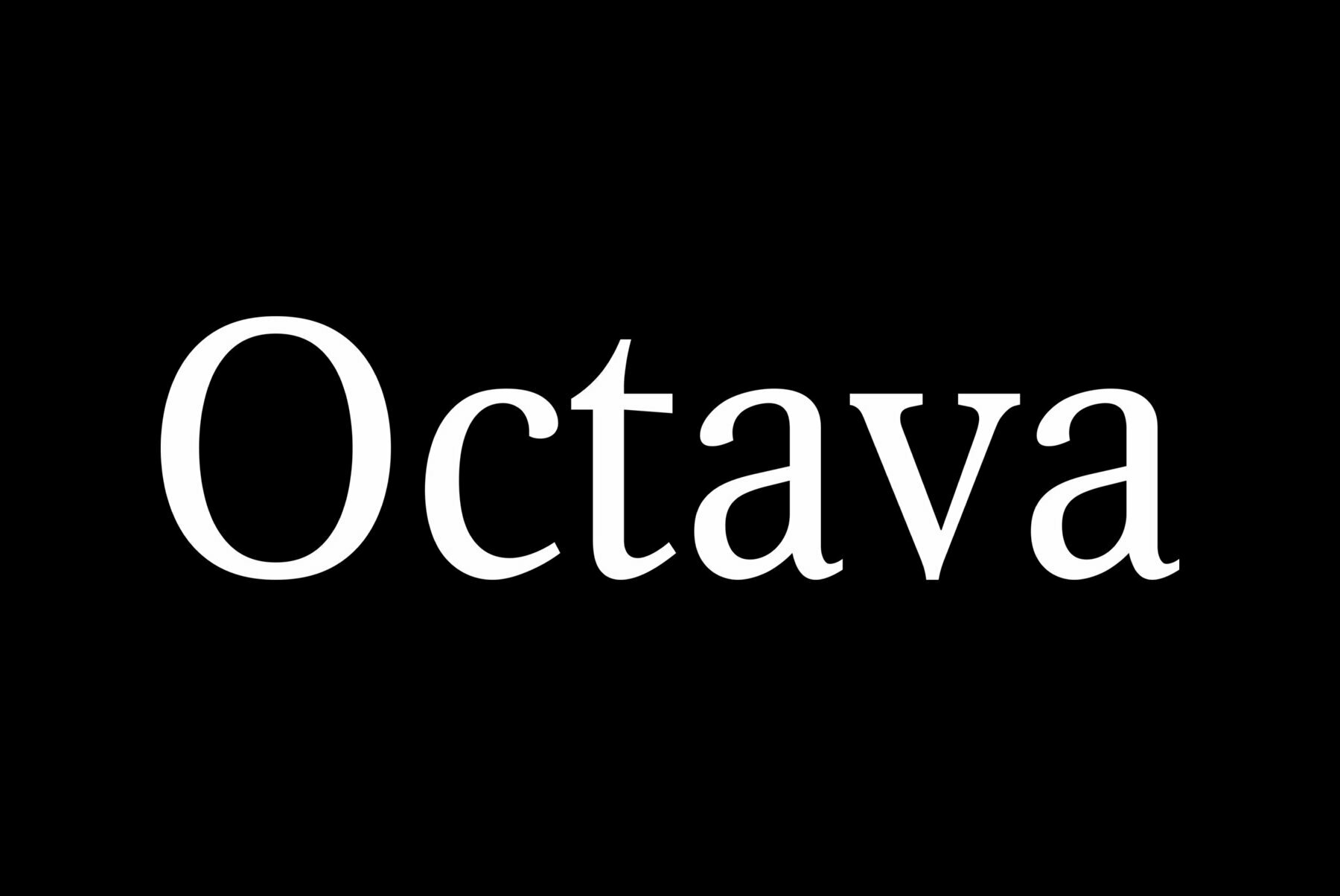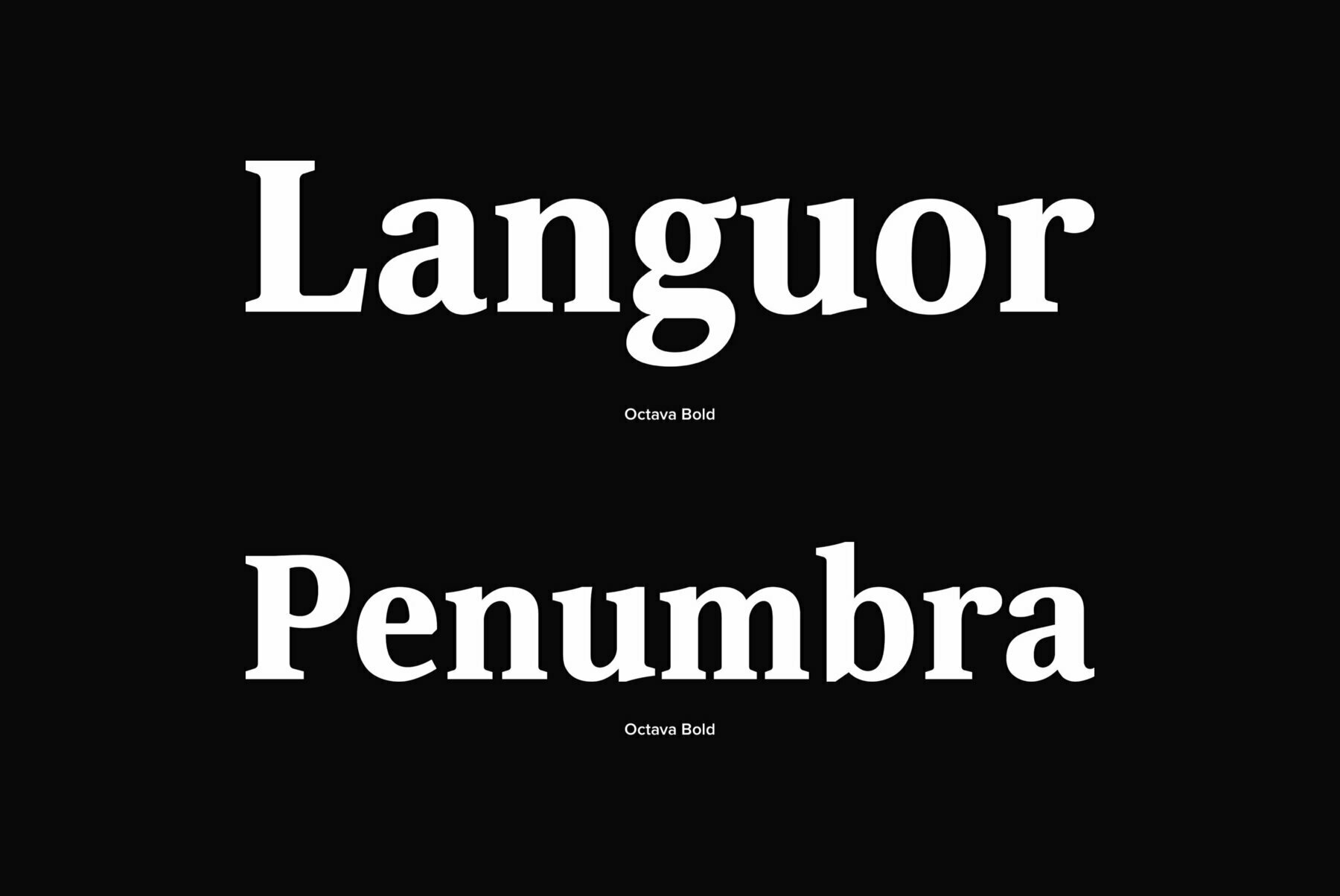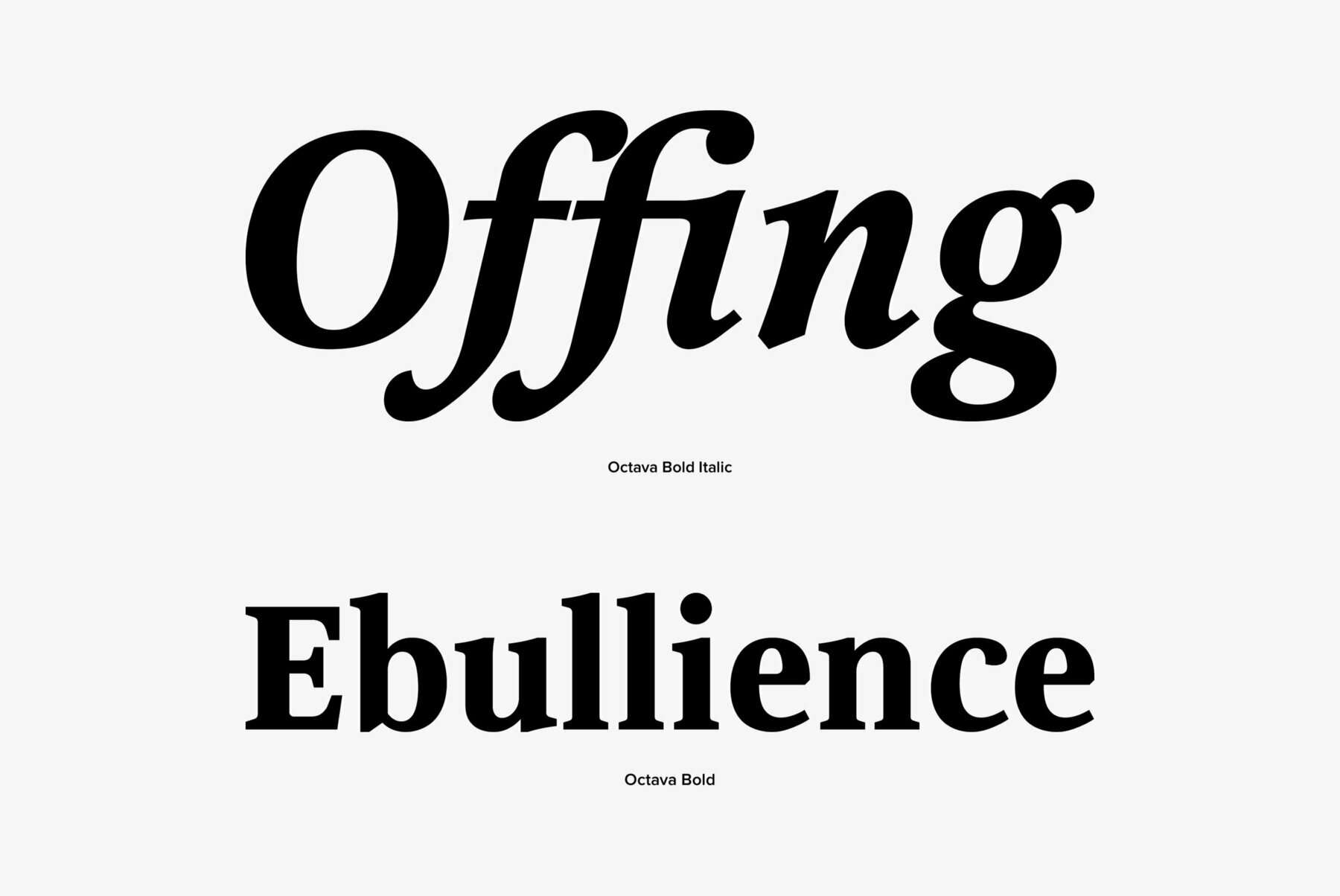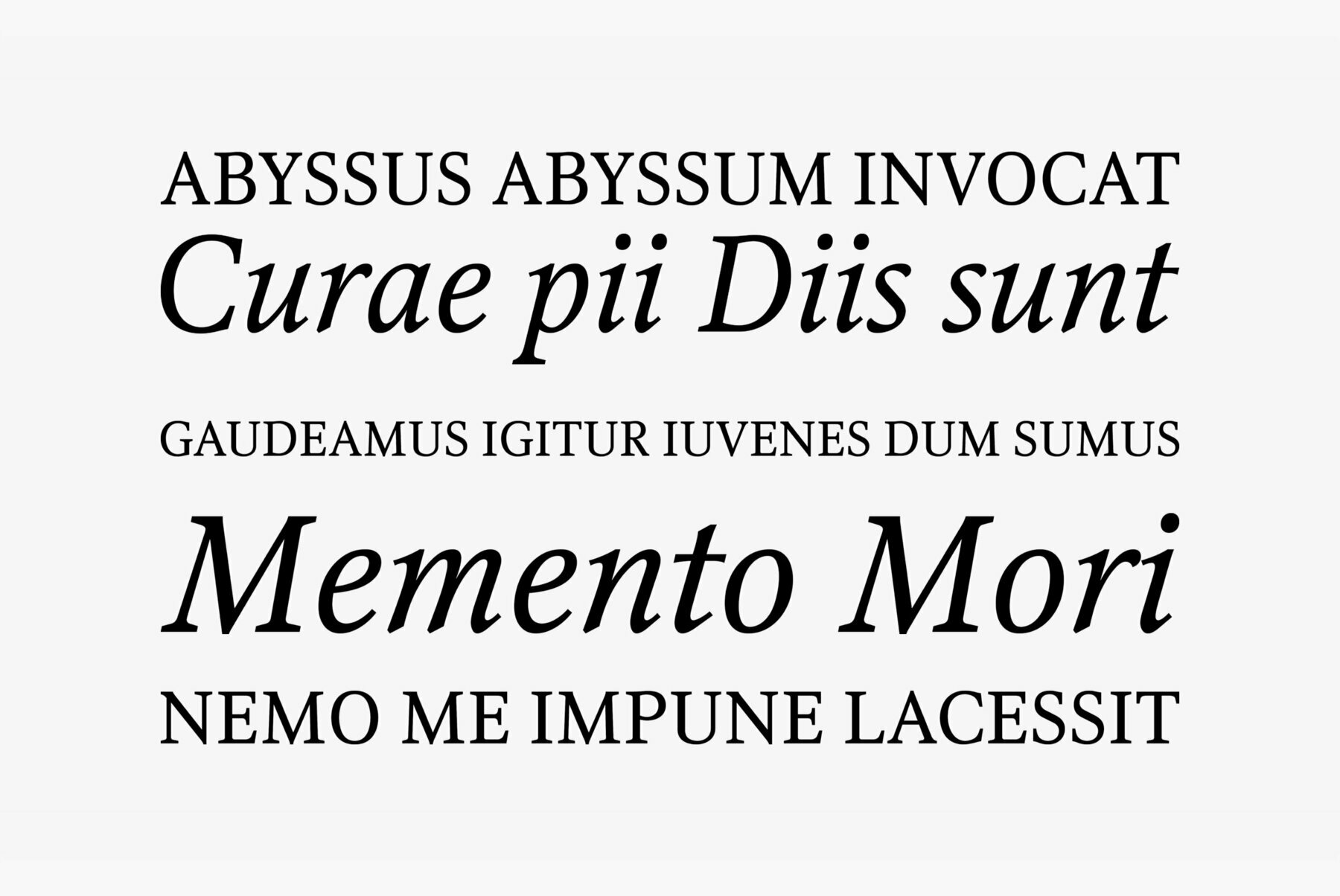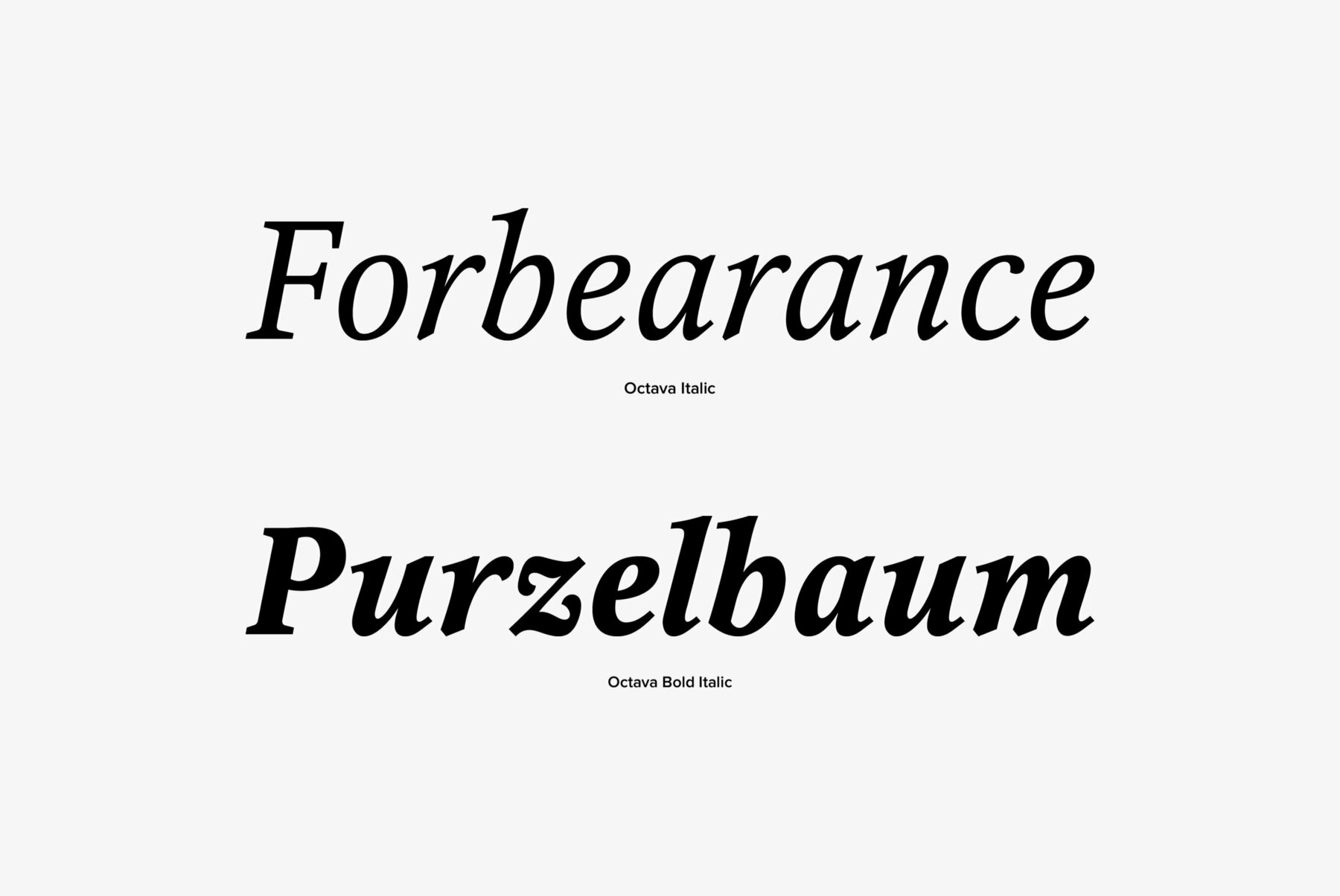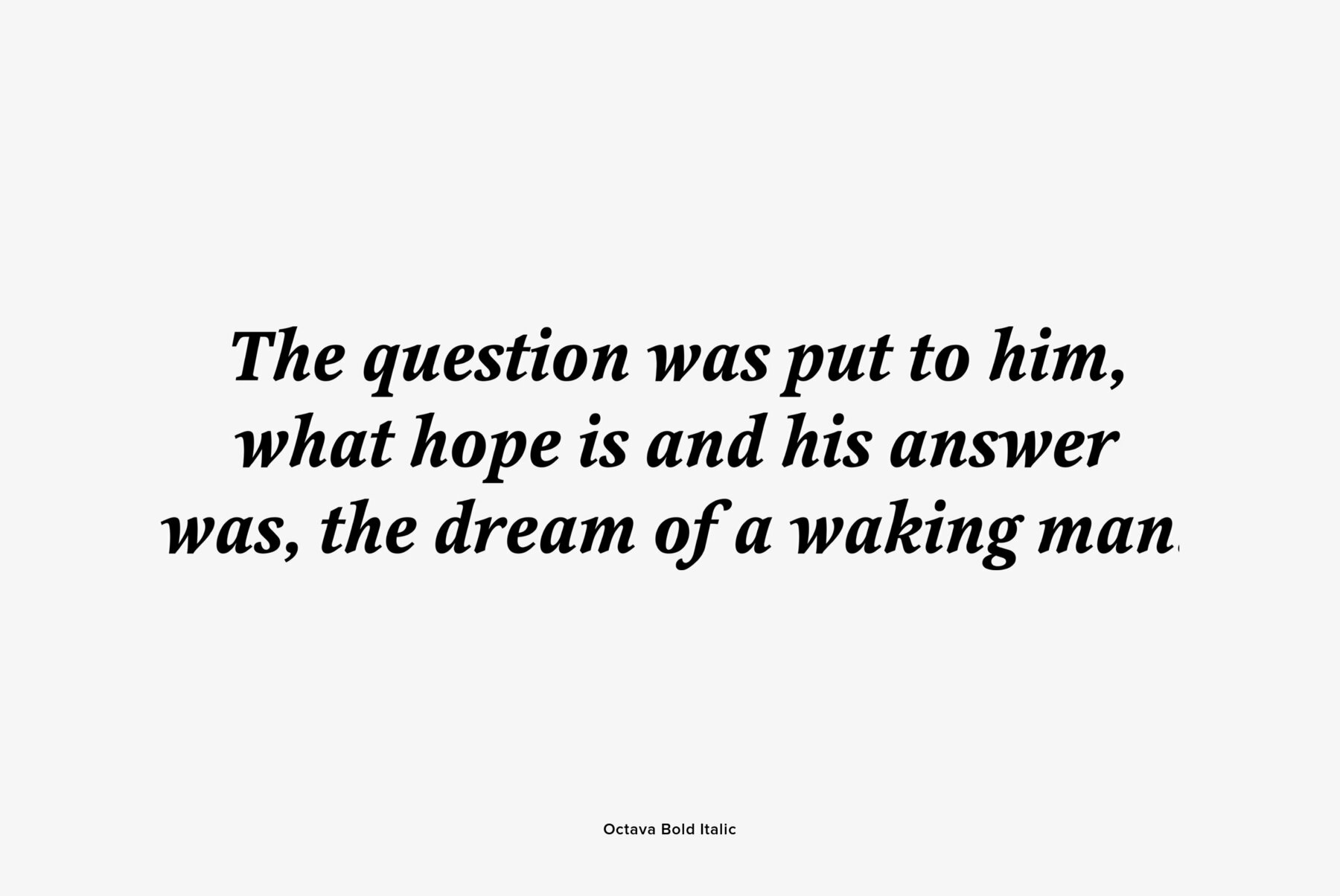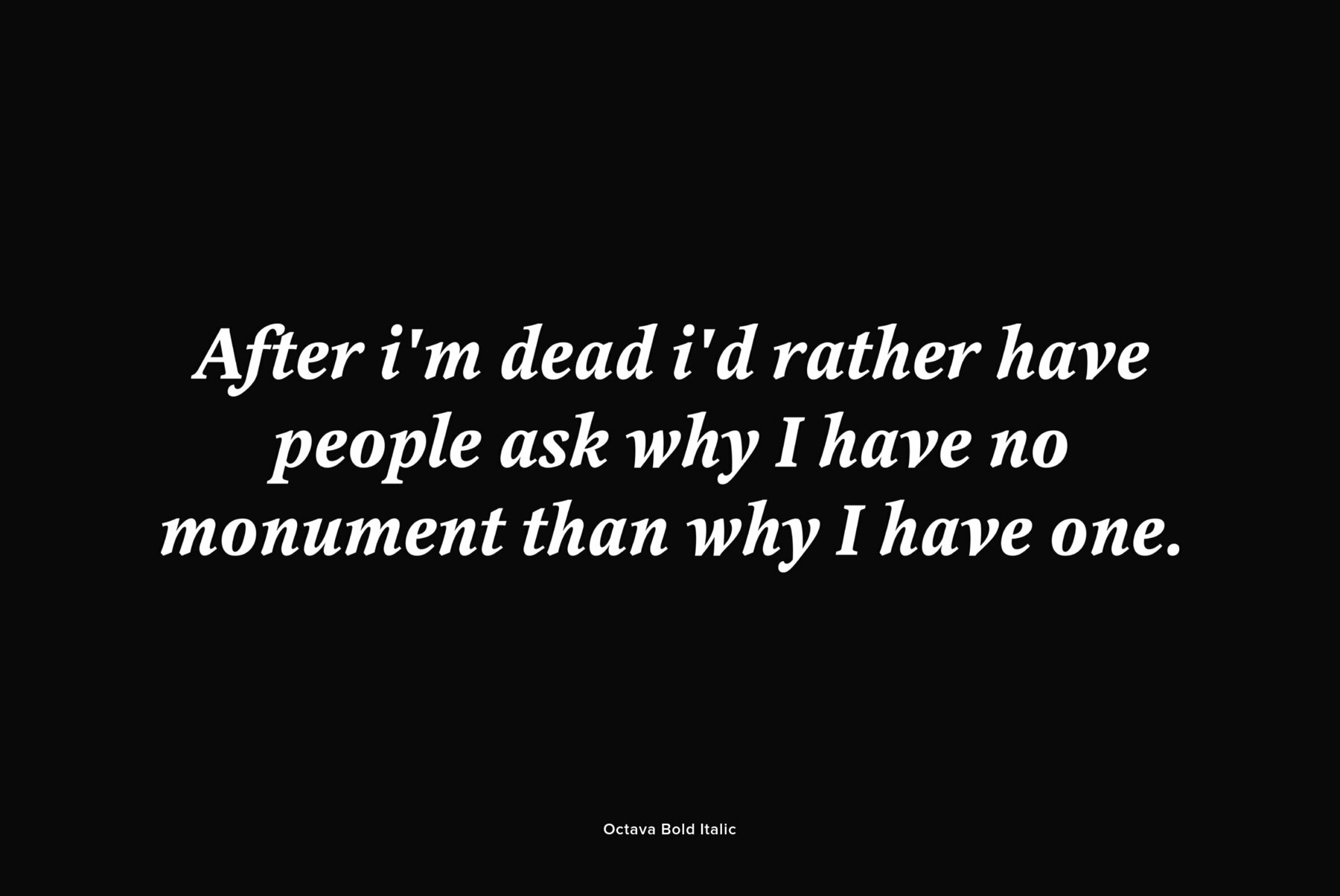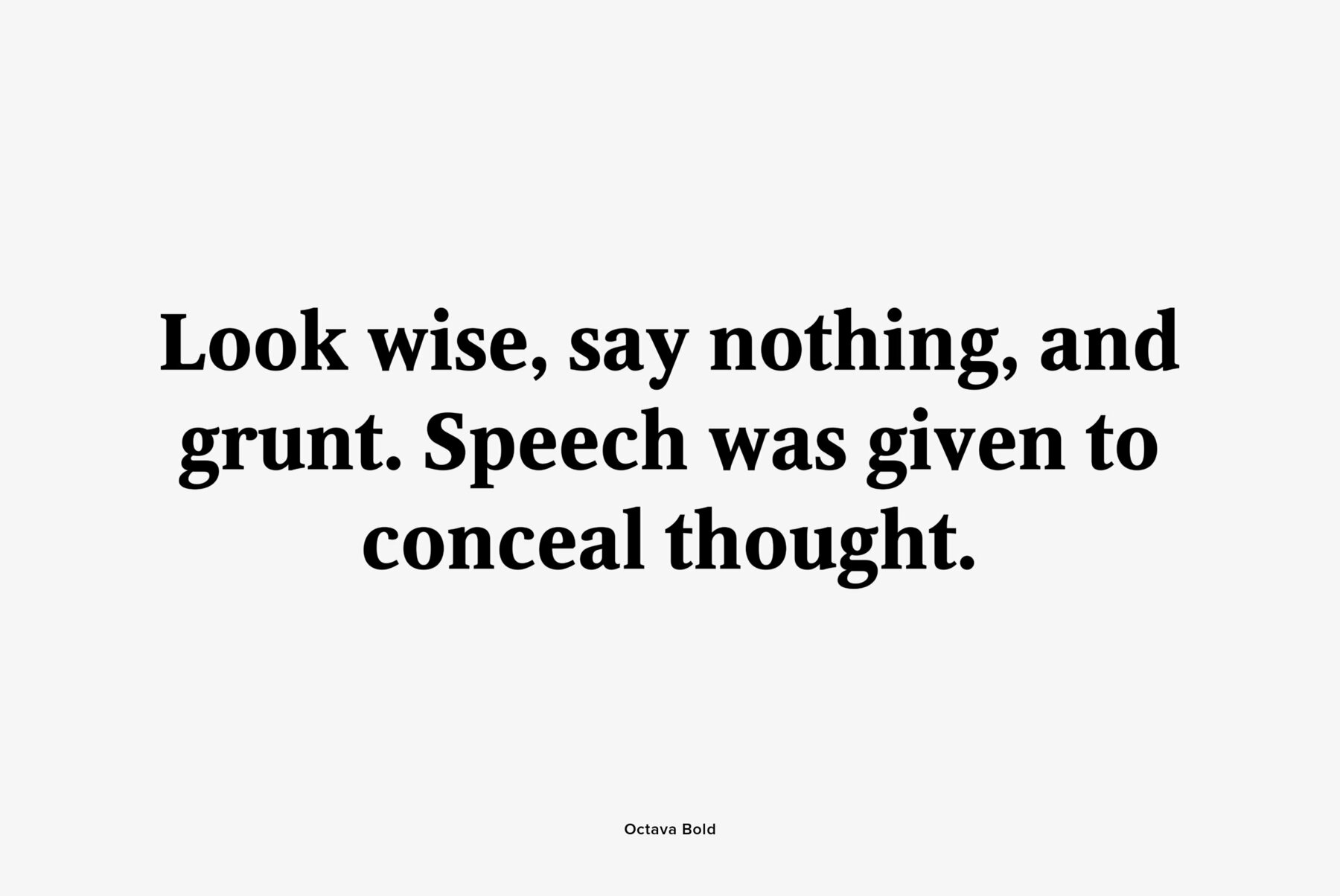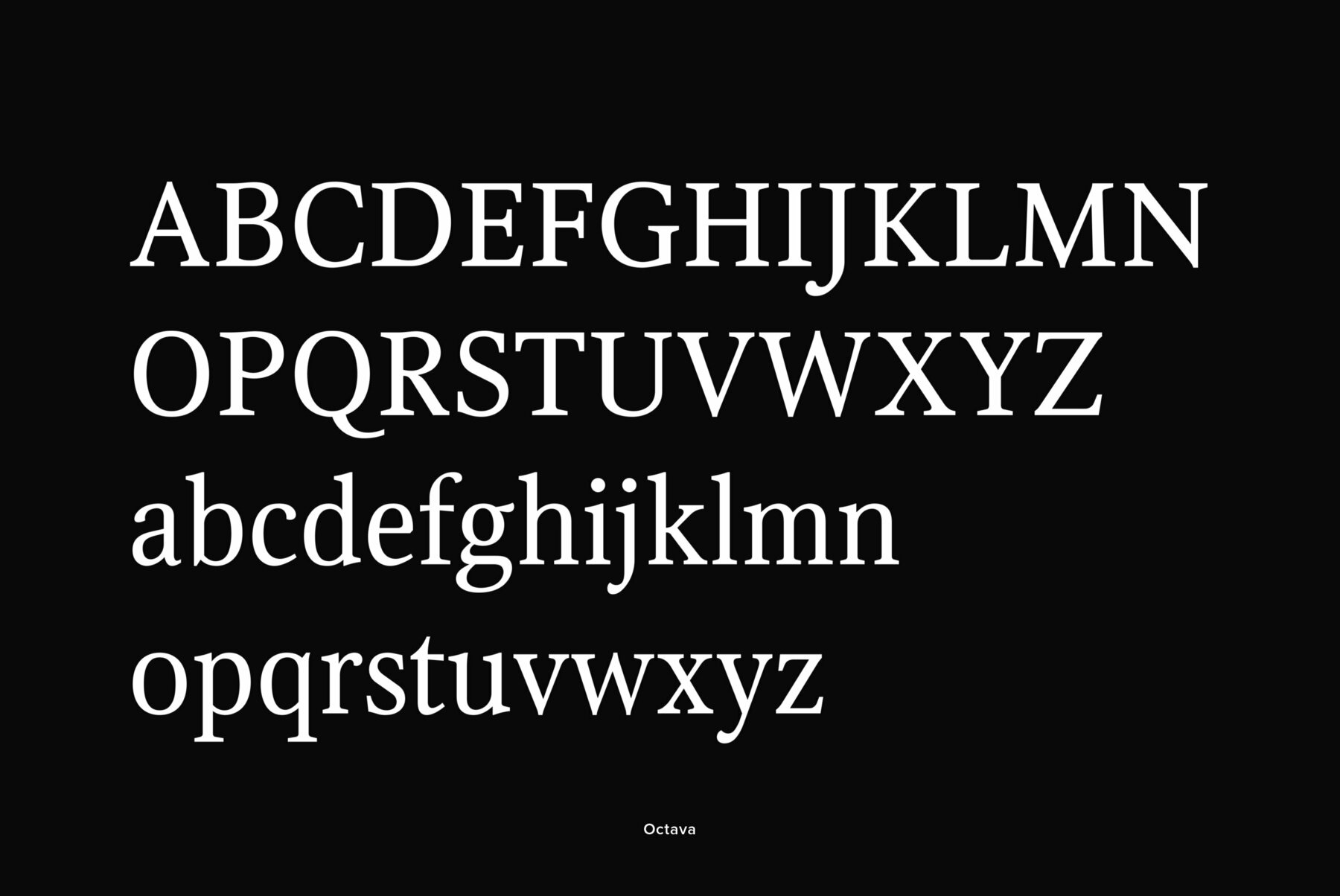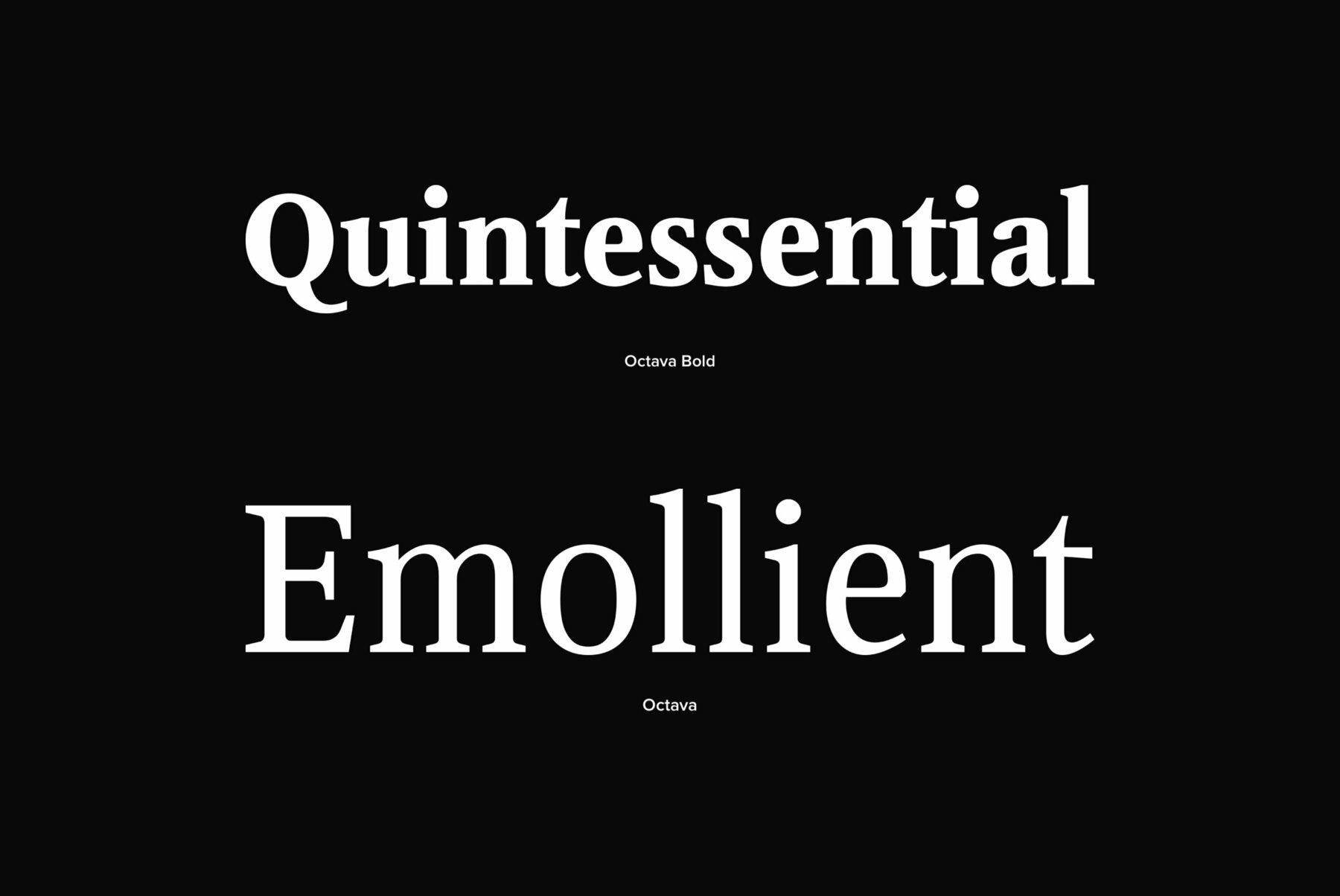
PT Octava™ was designed at ParaType in 2001 by Vladimir Yefimov. The first (Cyrillic only) version named Scriptura Russica (1996) consisting of three styles (book, italic, bold) was commissioned by the Russian Bible Society. Lately the Latin letters and bold italic were added. Inspired by Lectura, 1969, by Dick Dooijes and Stone Print, 1991, by Sumner Stone. In spite of large x-height the typeface is both space saving and quite legible at small sizes. Expert fonts including small caps (book) and old style figures are available.